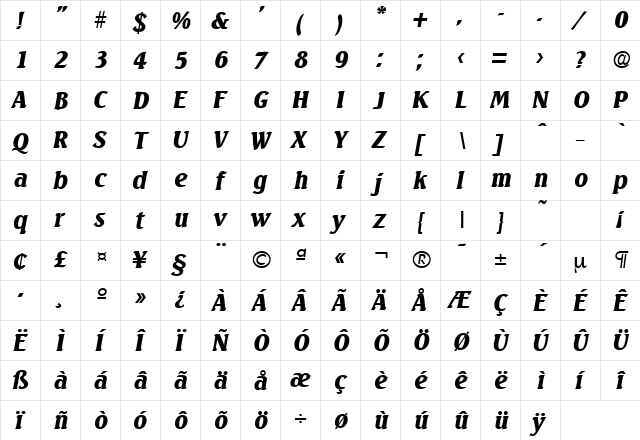
Seagull-Serial-Black RegularItalic
Design Context for Seagull-Serial-Black Typeface
Seagull-Serial-Black is a composed and adaptable typeface that performs quietly and consistently across a wide range of design contexts. The slanted form adds forward momentum and visual energy.
Pro Tip: Try Seagull-Serial-Black for annotation and caption copy alongside an upright companion — the contrast in angle creates a dynamic but ordered typographic system.